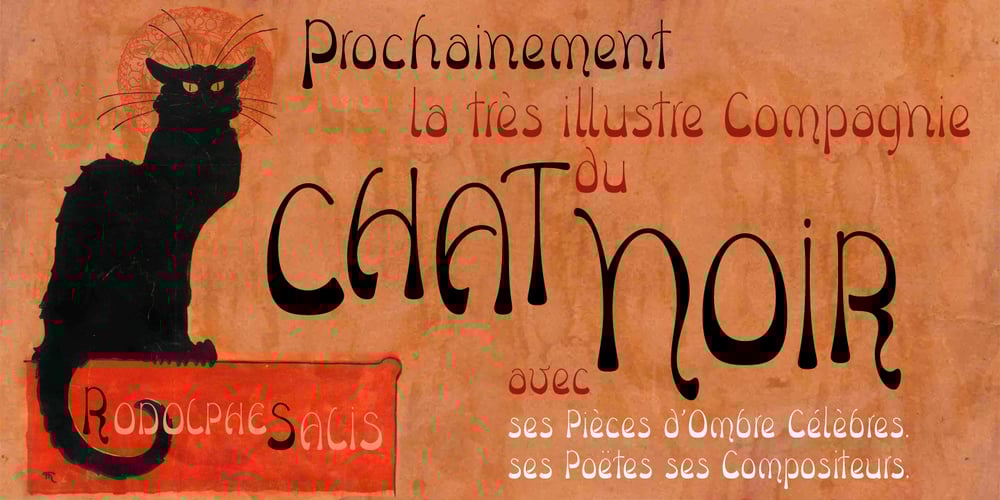
Oblonga
Oblonga font
Oblonga Font Family was designed by Alberto Pedro Di Santo and published by Eurotypo. Oblonga contains 2 styles and family package options. Oblonga shows thin, elegant lines. The continuity of the trace is only suggested through the curves of the letters, a soft effect of bonding that maintains the identity of each character. Oblonga is an Art-Déco font proposed in a modern key, a revival performed without aggression. More than three hundred glyphs (regular and Italic) that ensure legibility in Central-European and Slavic languages, enriched by some appropriate discretionary ligatures that enhance the charme of a time gone away.